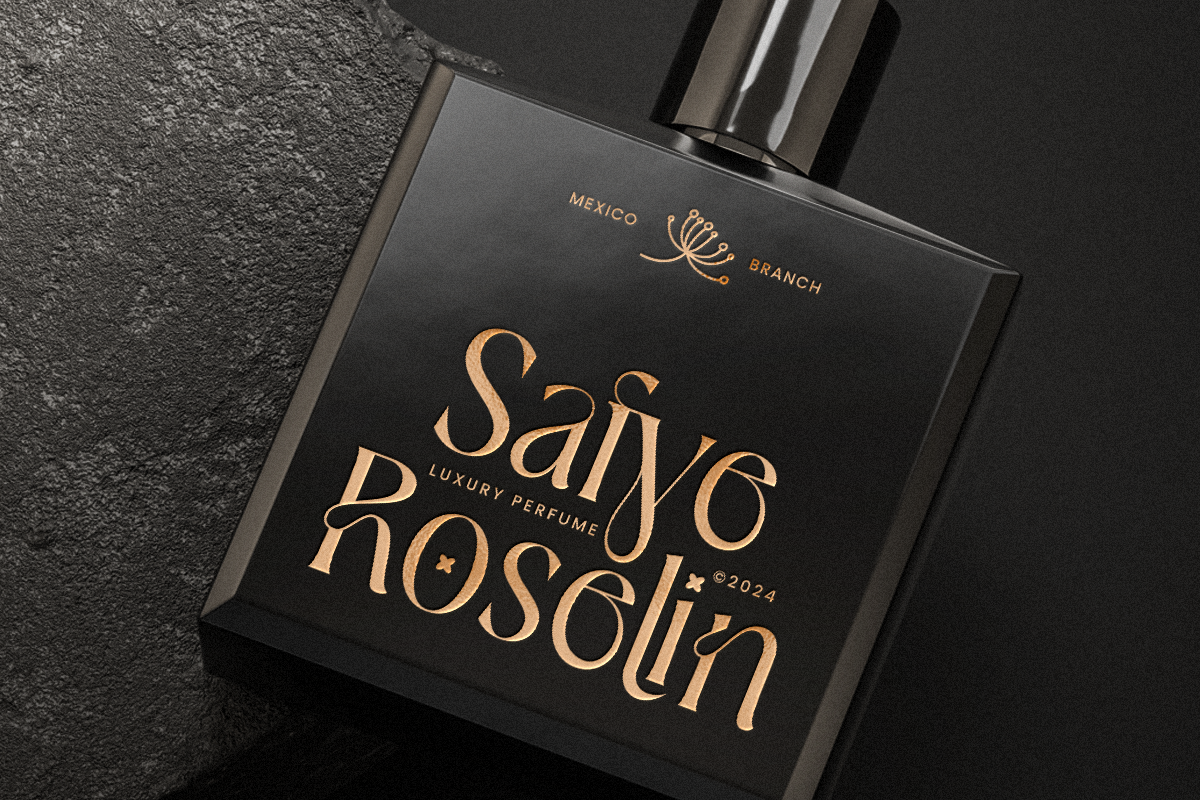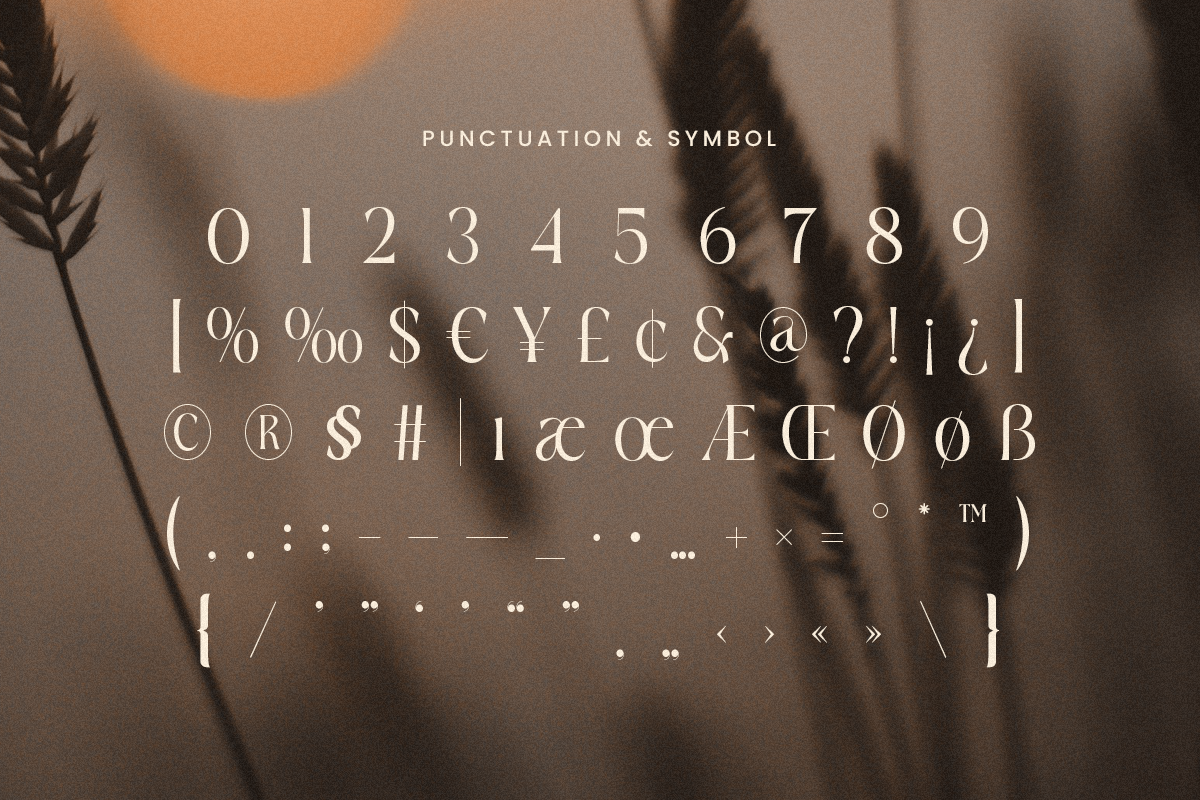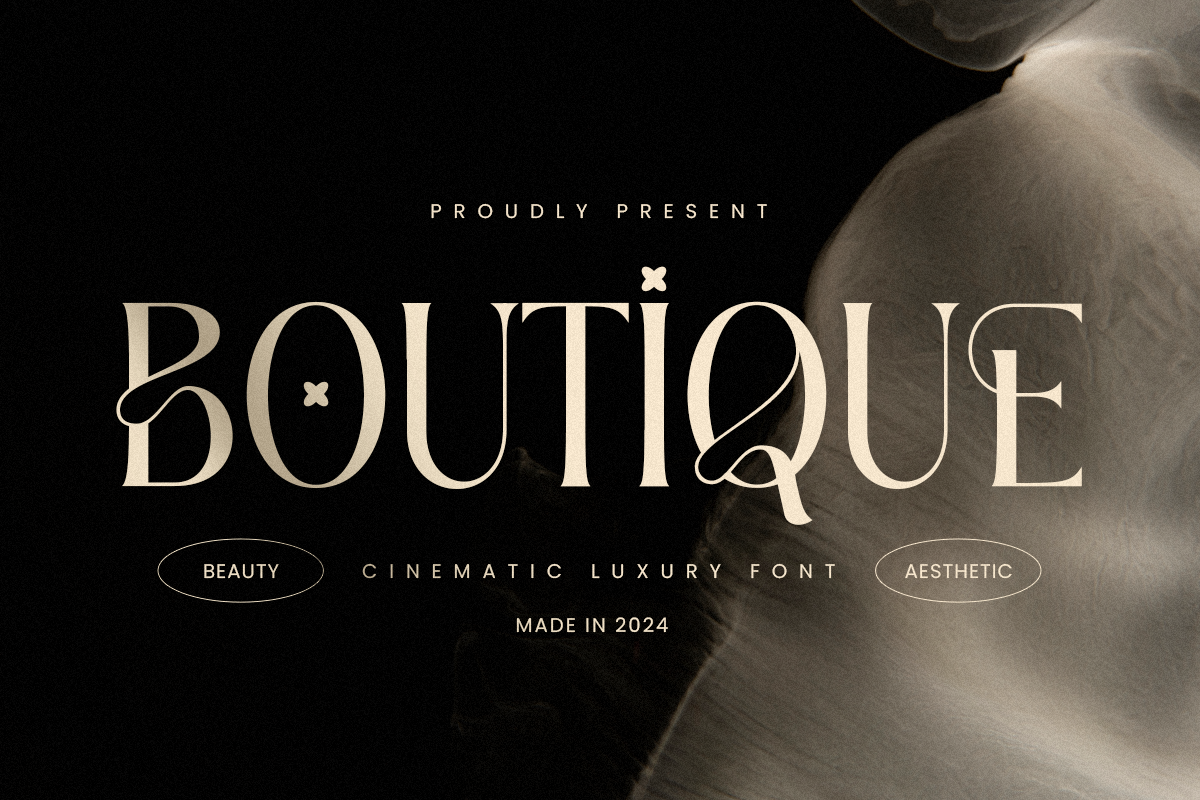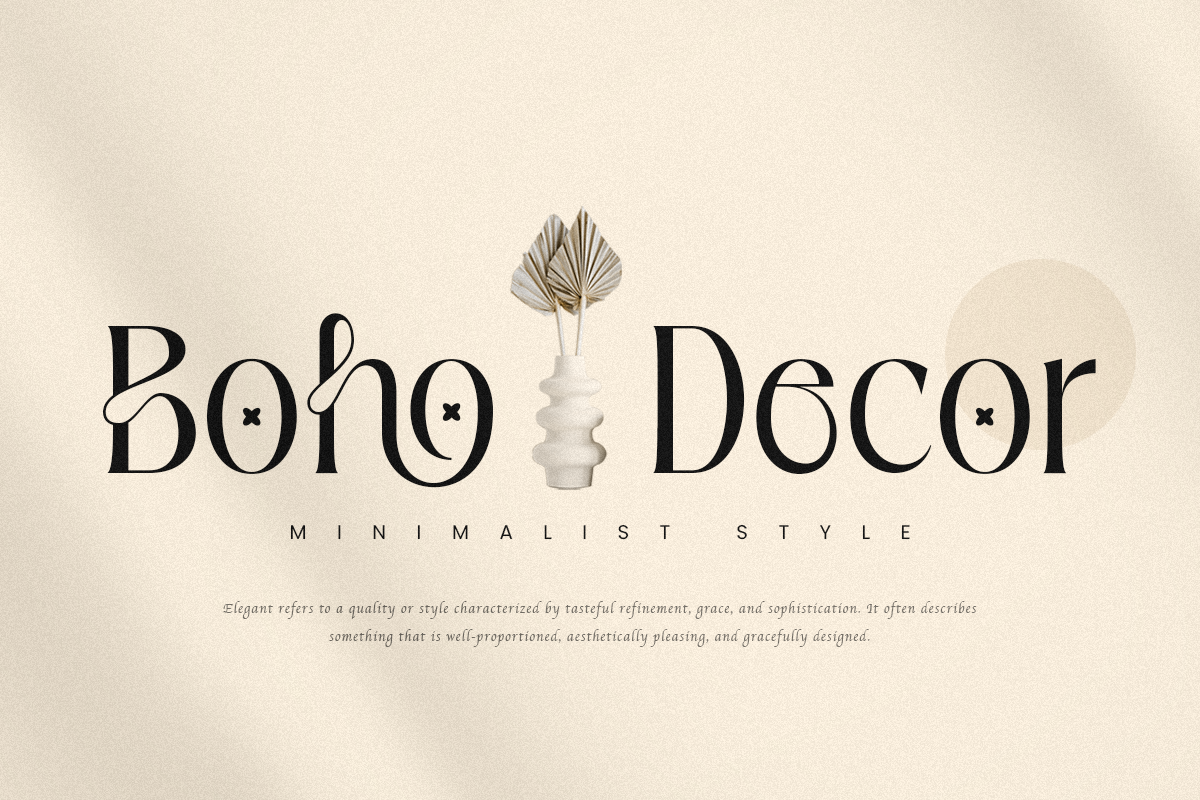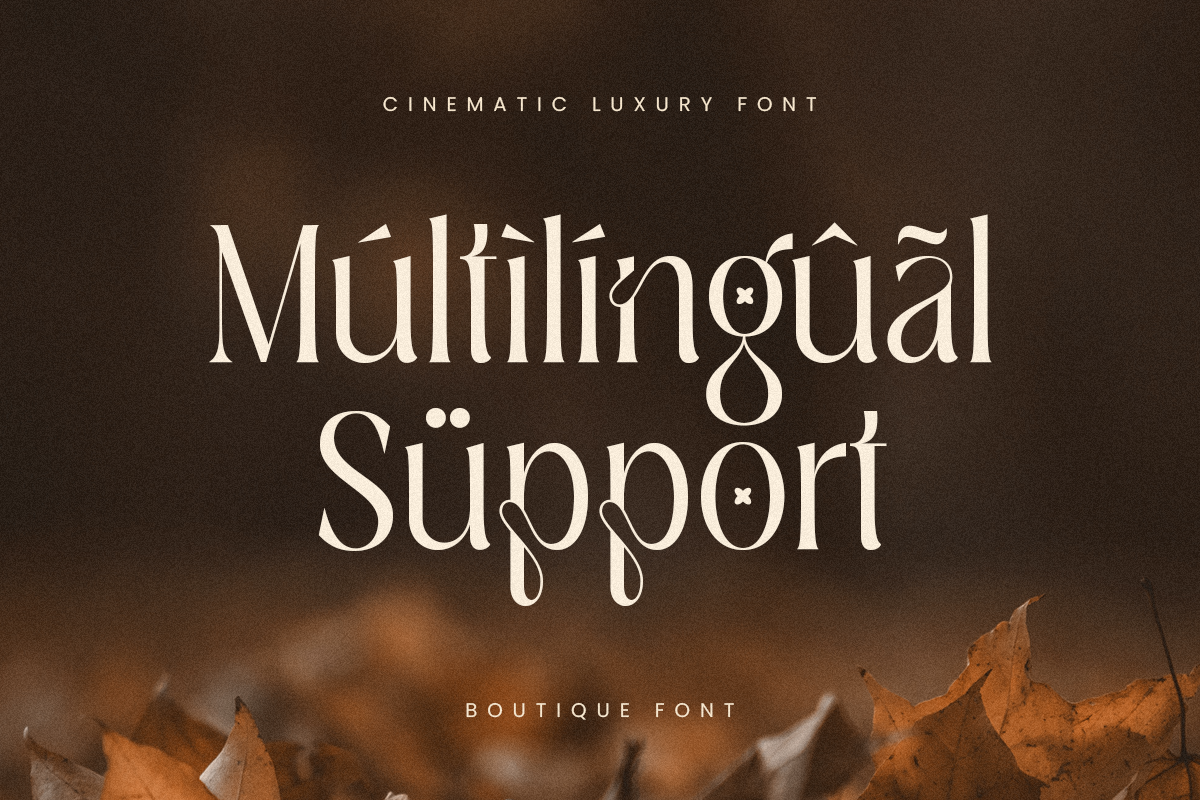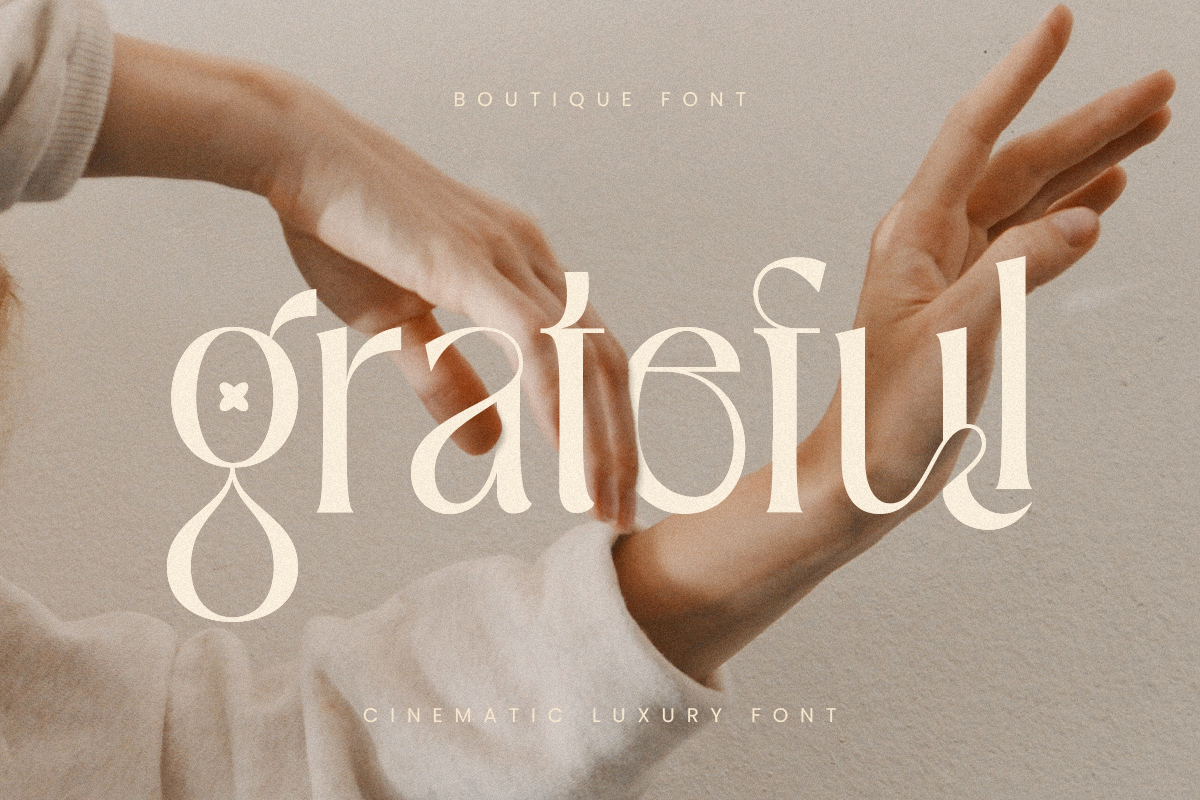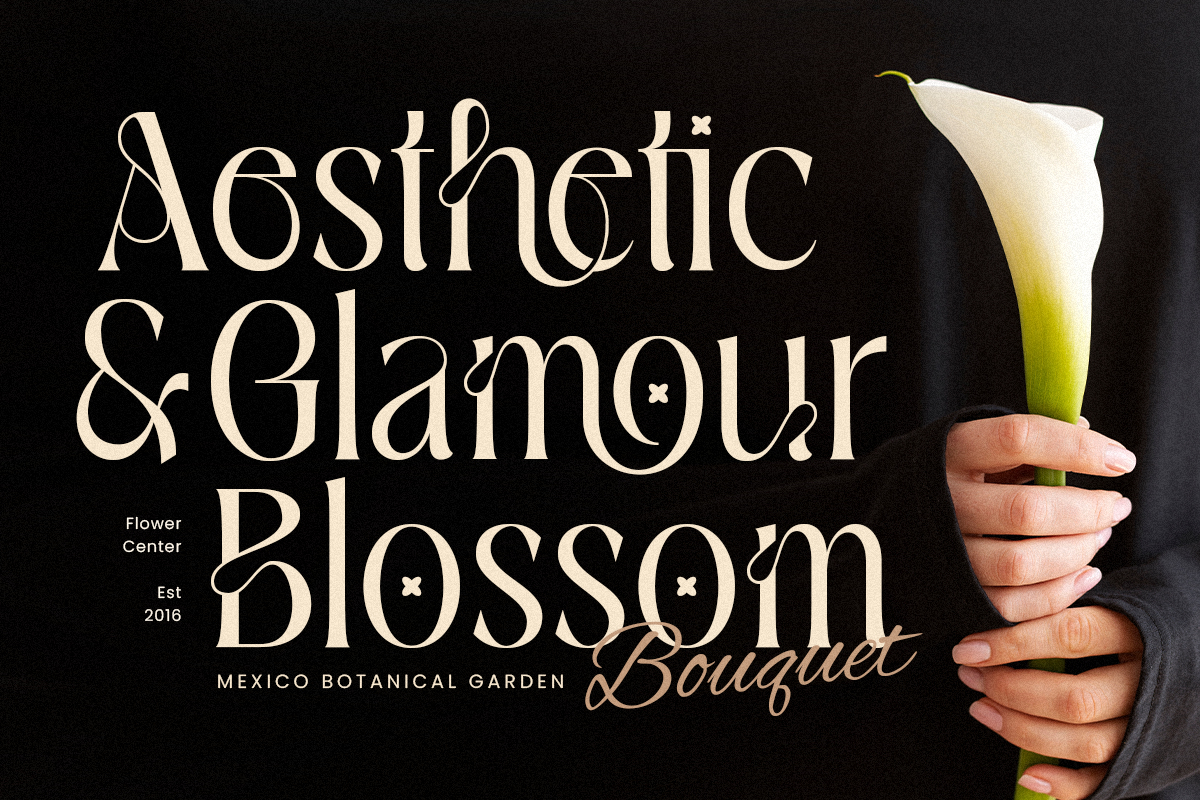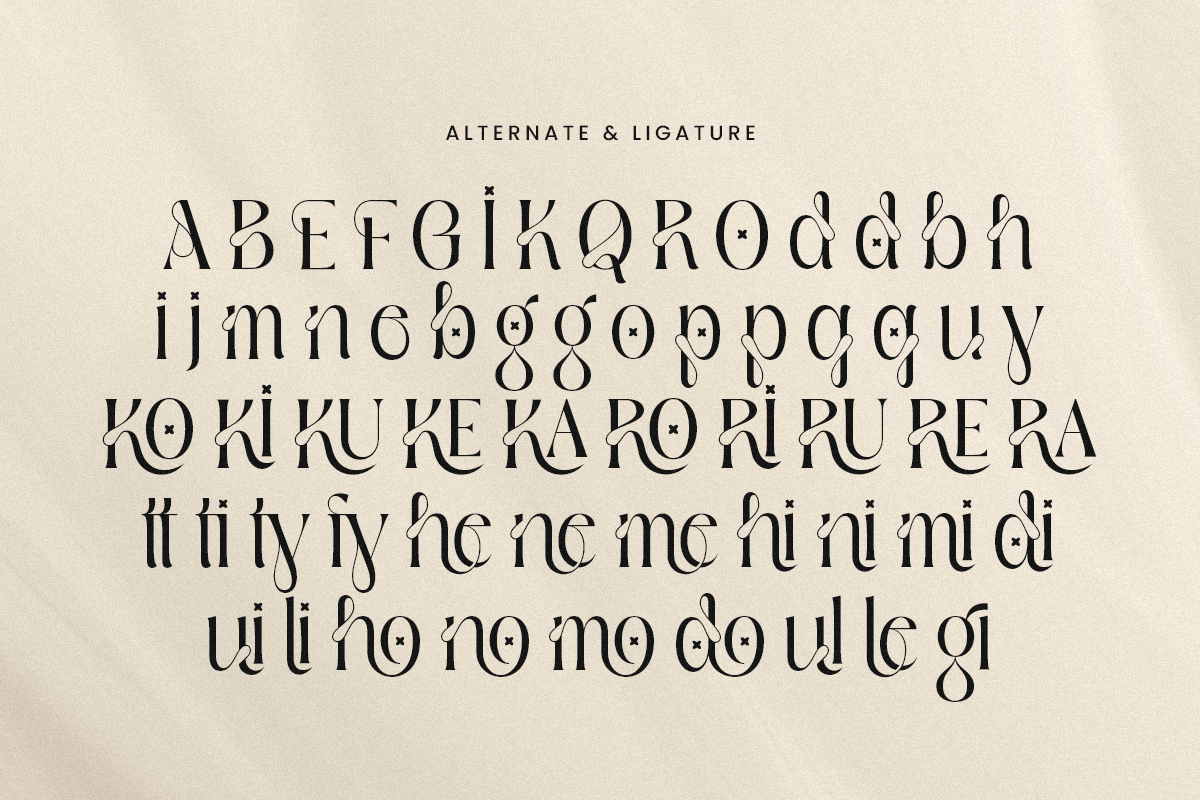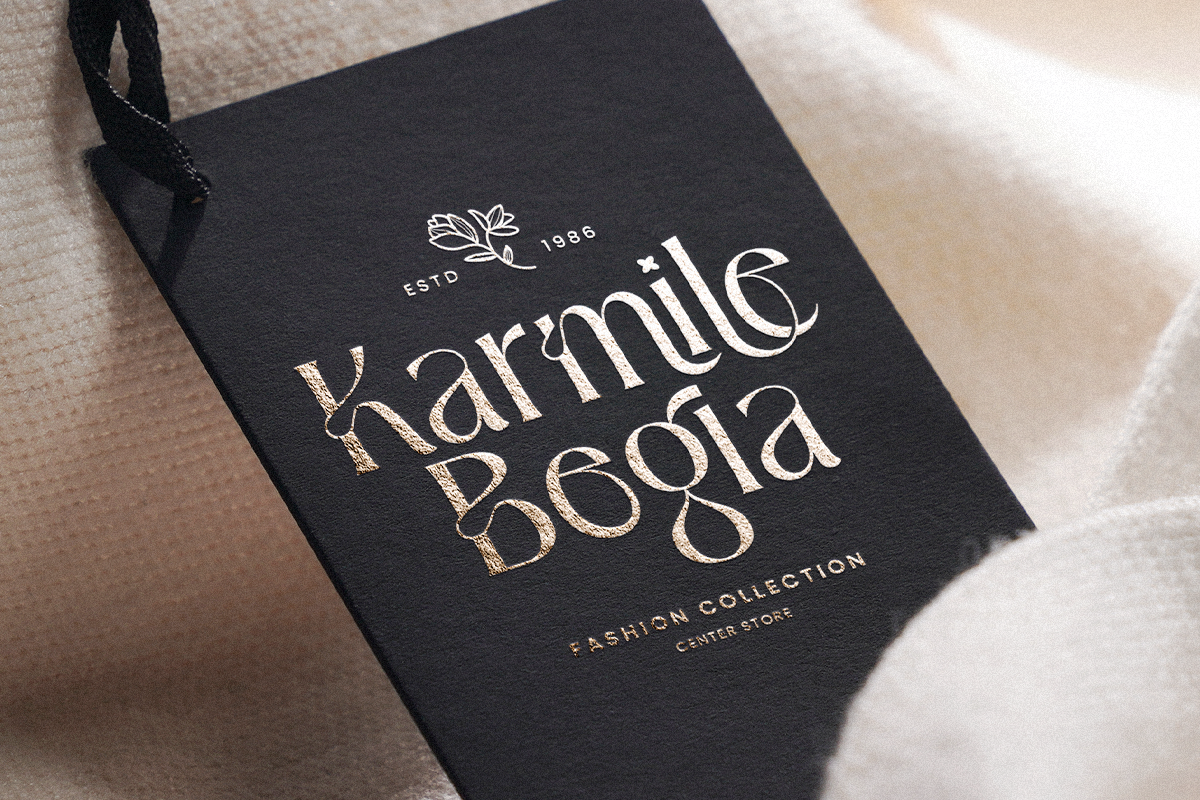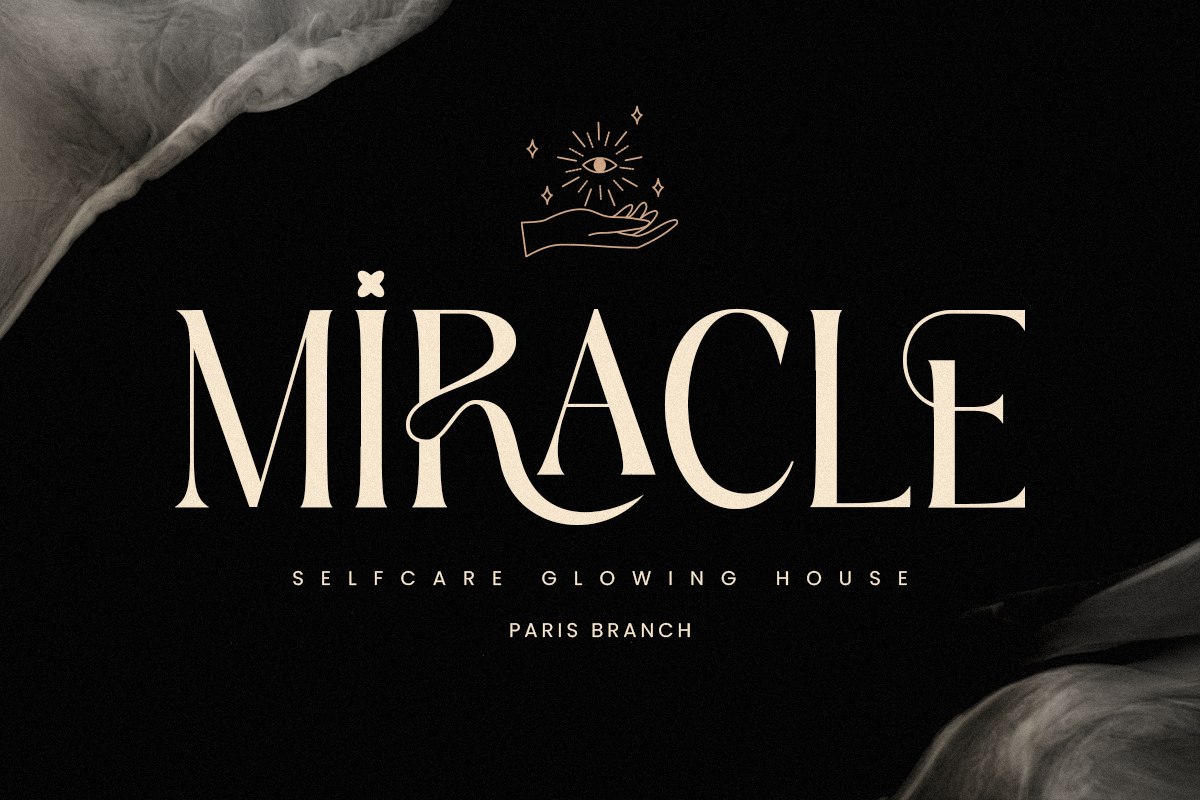
Boutique - Cinematic Luxury Font
Boutique is a cinematic luxury font designed to bring sophistication and elegance to your designs. Perfectly suited for high-end branding, editorial layouts, and upscale product packaging, Boutique’s refined letterforms exude timeless style. Inspired by classic cinematic visuals and premium aesthetics, this font creates a unique aura, captivating viewers with its graceful yet powerful presence.
Every character in Boutique is carefully crafted to balance elegance with a touch of boldness, making it ideal for brands aiming for a luxurious appeal. Whether it's for a fashion logo, magazine headline, or refined advertising campaign, Boutique adapts beautifully, enhancing each design with a touch of glamour.
Use Boutique to give your projects a distinctive, memorable look that resonates with audiences who appreciate sophistication and cinematic style. This font is made for those who want to make a lasting impression with their designs.
Boutique Cinematic Luxury Font Features:
- Luxury Ligature & Alternate Characters Ready
- Punctuation, Number, and Symbol
- Opentype Features
Multilingual Characters available for:
Afrikaans, Albanian, Asu, Basque, Bemba, Bena, Breton, Chiga, Cornish, Dutch, English, Estonian, Filipino, Finnish, Friulian, Galician, German, Gusii, Indonesian, Irish, Italian, Kabuverdianu, Kalenjin, Kinyarwanda, Luo, Luxembourgish, Luyia, Machame, Makhuwa-Meetto, Makonde, Malagasy, Manx, Morisyen, North Ndebele, Nyankole, Oromo, Portuguese, Quechua, Romansh, Rombo, Rundi, Rwa, Samburu, Sango, Sangu, Scottish Gaelic, Sena, Shambala, Shona, Soga, Somali, Spanish, Swahili, Swedish, Swiss.